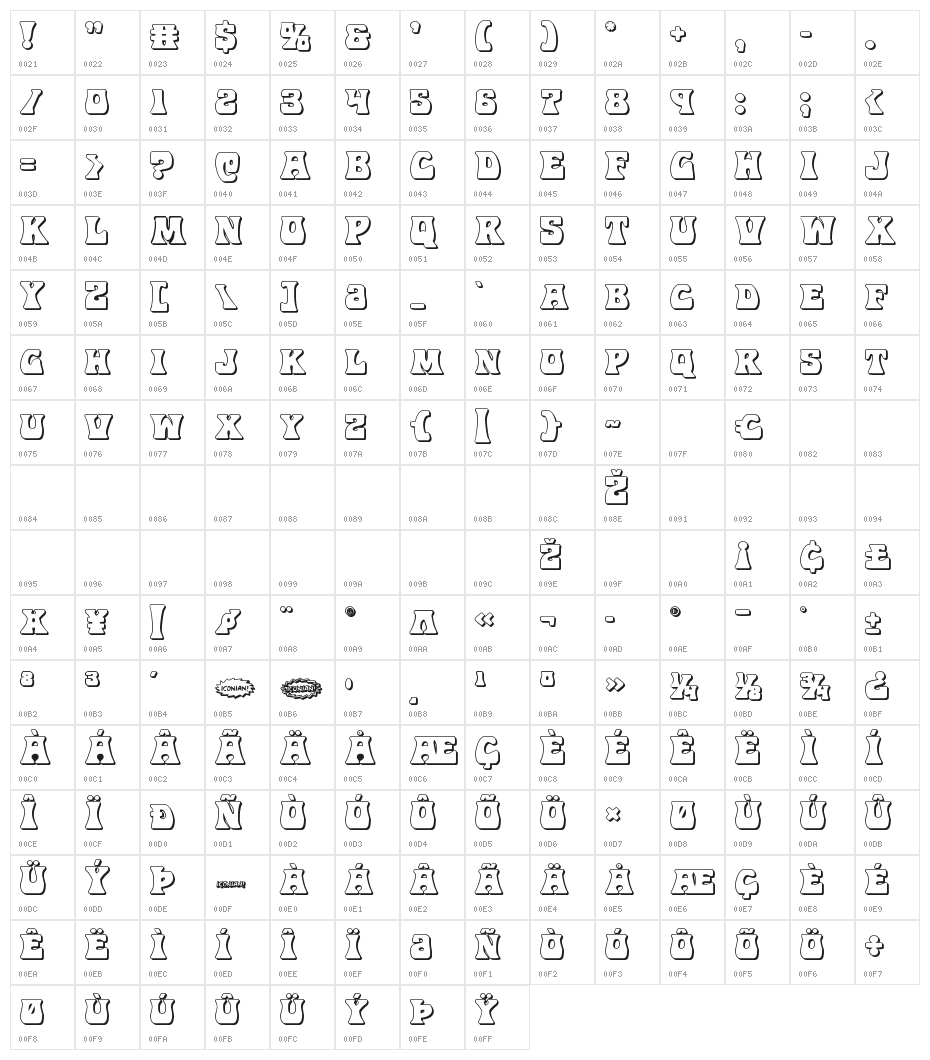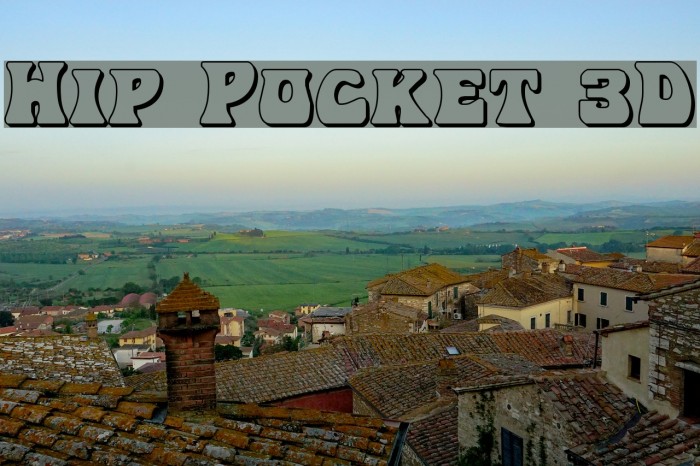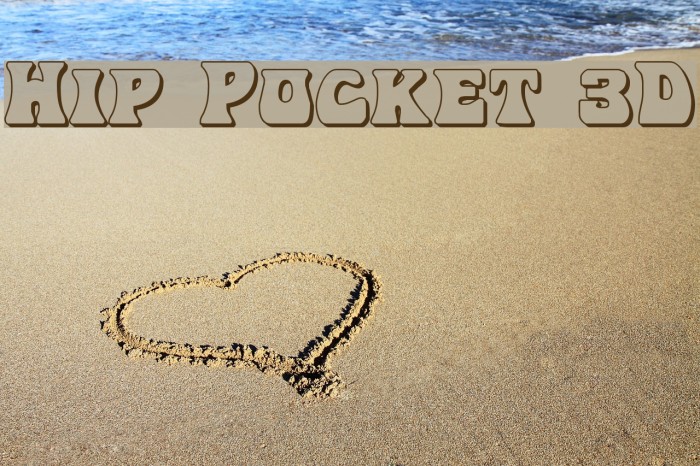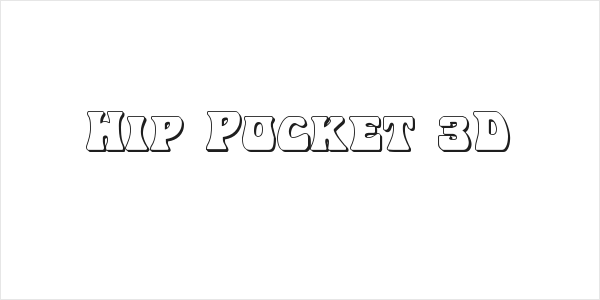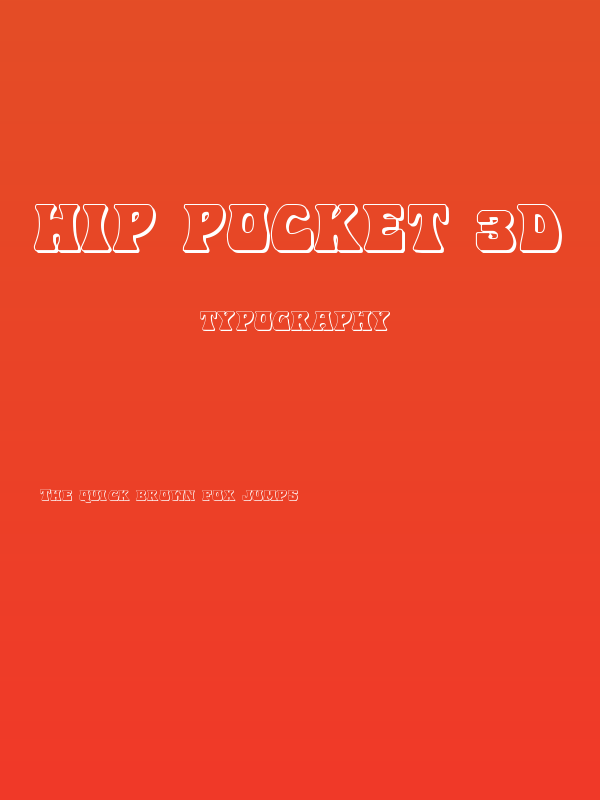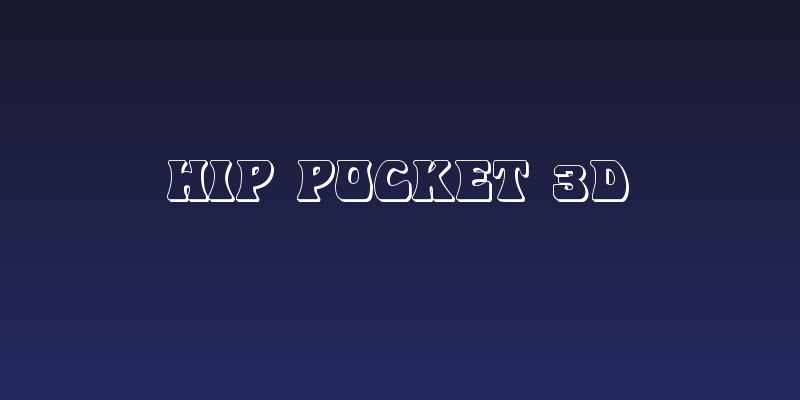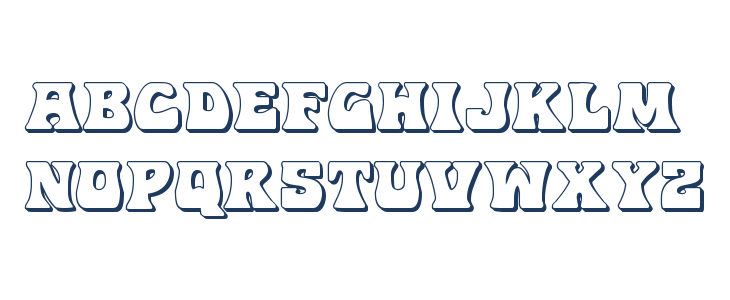
Hip Pocket 3D Font
Hip Pocket 3D Description
This font features a bold, three-dimensional style with a playful and chunky appearance. The characters are outlined, creating a shadow effect that gives them depth and a sense of movement. The design is consistent across uppercase and lowercase letters, as well as numbers and special characters, maintaining a cohesive look. The font's thick strokes and rounded edges contribute to its friendly and approachable feel, making it suitable for eye-catching designs. Its unique style is reminiscent of retro or vintage aesthetics, yet it maintains a modern appeal through its clean lines and structured form.
| Overall Style | Retro, Modern |
| Proposed Projects | Ideal for posters, logos, children's books, and any design needing a fun, eye-catching font. |